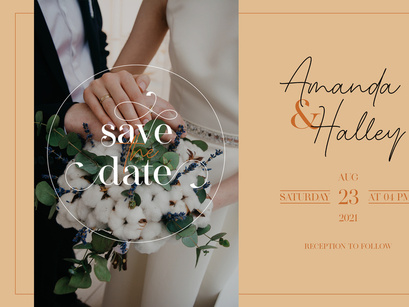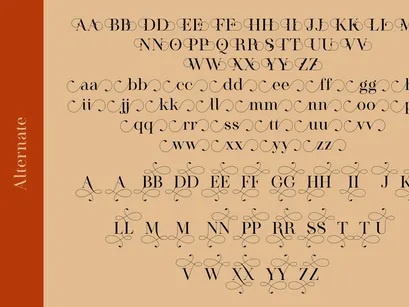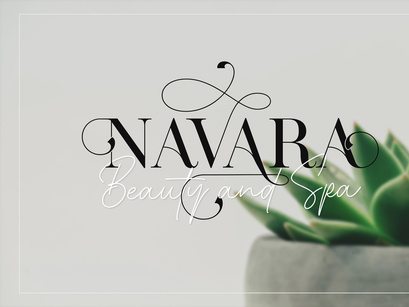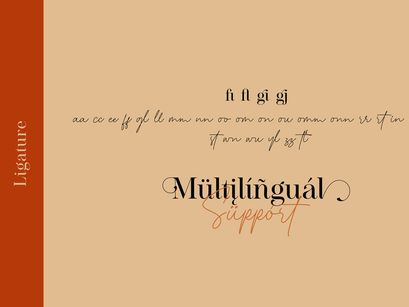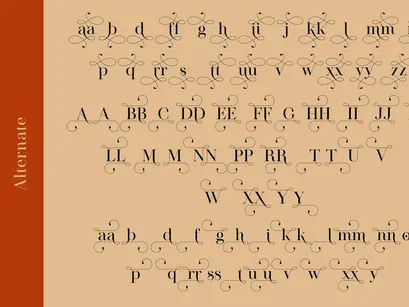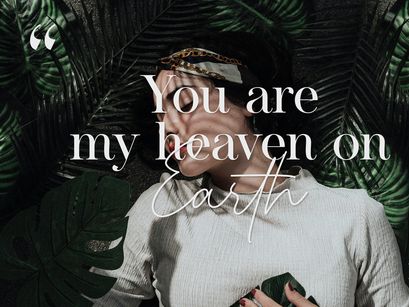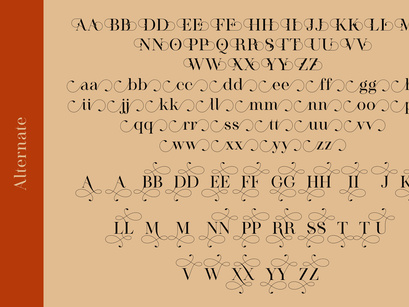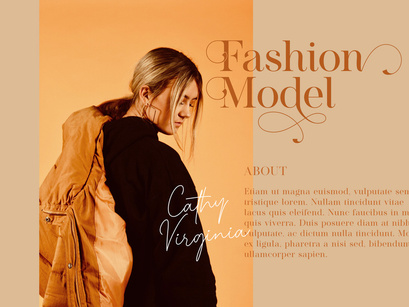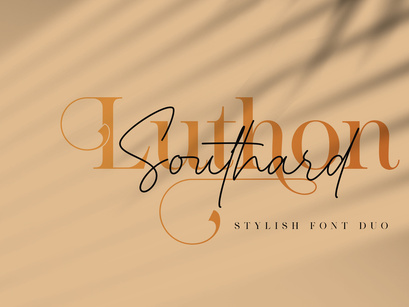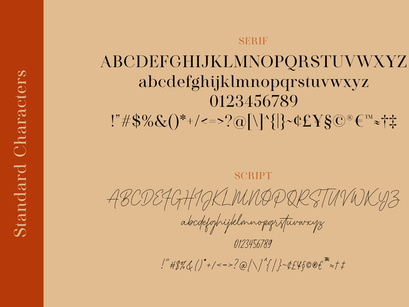
Luthon Southard - Font Duo
Luthon Southard Script
Luthon Southard Serif
Luthon Southard is a spectacular duo font (Stylish Serif and Monoline Script). Perfect for product packaging, branding project, magazine, social media, and much more. Add this font to your favorite creative ideas and notice how it makes them come alive!
Serif & Script
Ligatures
Alternate
Uppercase and Lowercase letters
Numbering and Punctuations
Also Multilingual Support